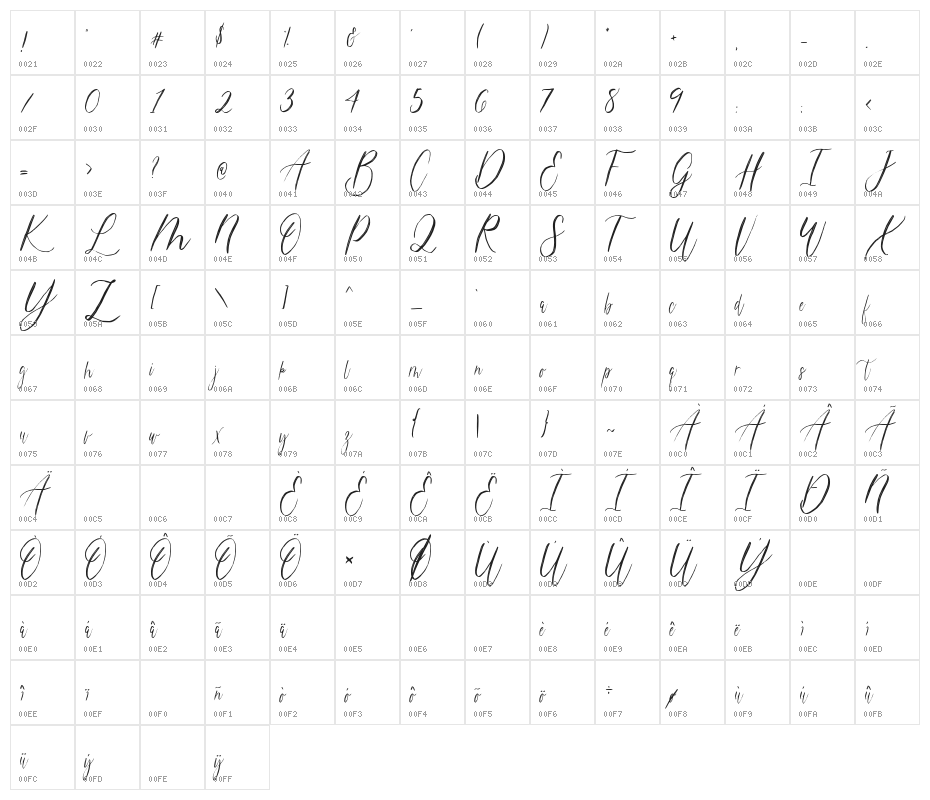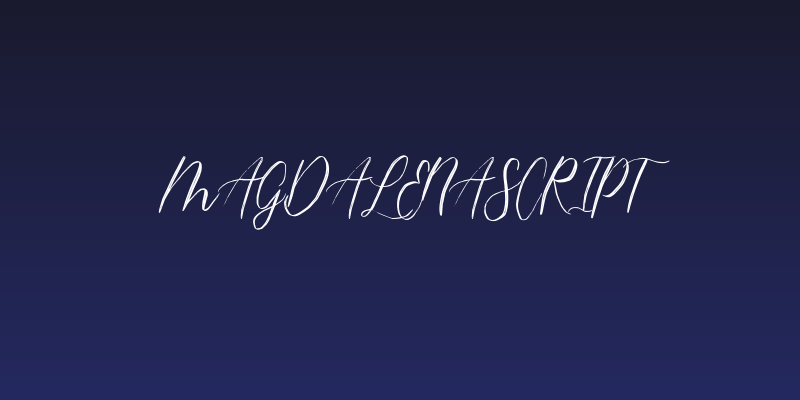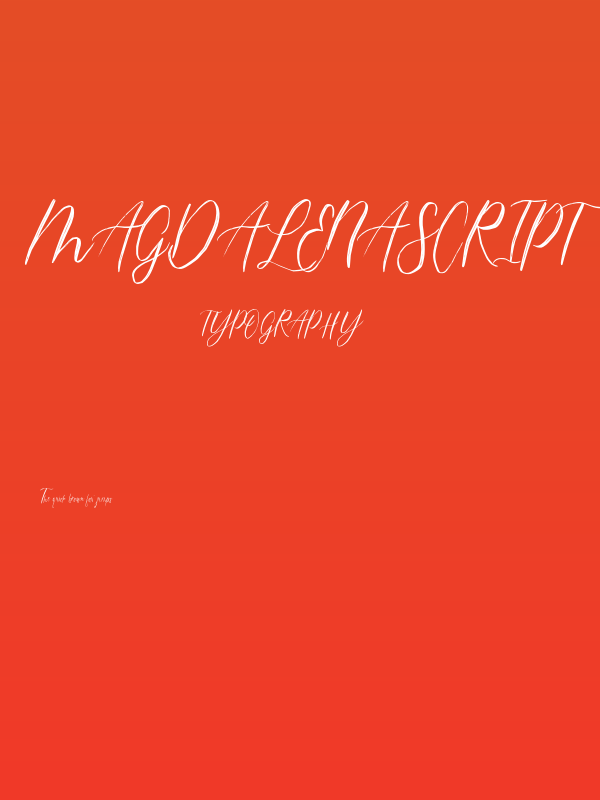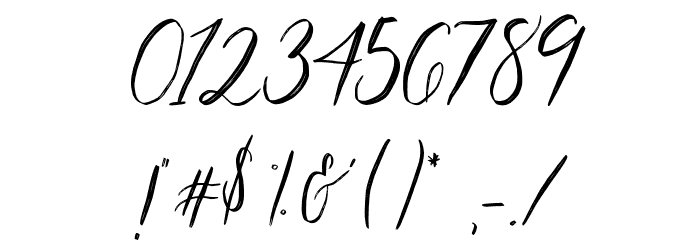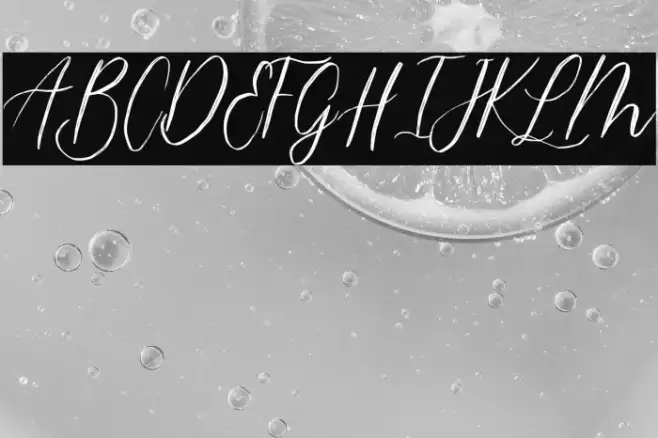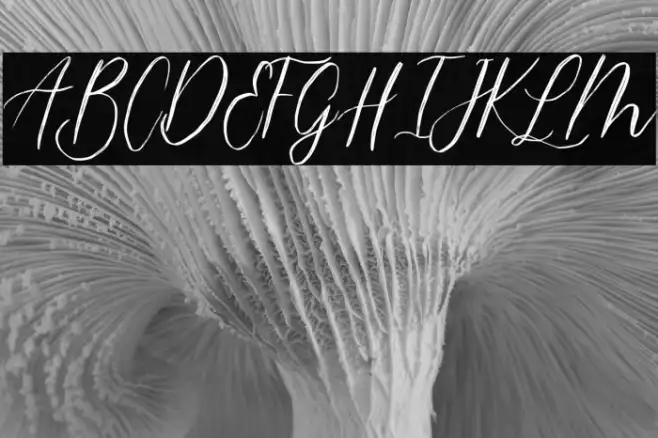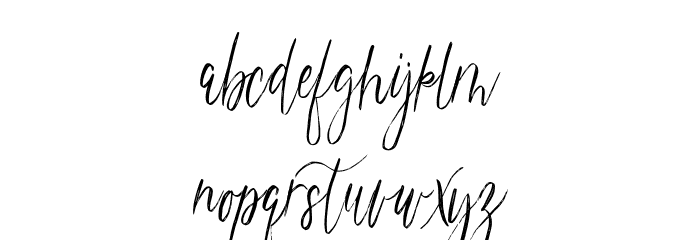
magdalenascript Font
magdalenascript Description
This font exudes elegance and fluidity, characterized by its flowing script style that mimics the natural movement of handwriting. The letters are connected with smooth, sweeping strokes, giving it a graceful and sophisticated appearance. The uppercase letters are particularly ornate, with exaggerated loops and curves that add a touch of flair. The lowercase letters maintain a consistent rhythm, enhancing readability while retaining a stylish look. The numerals and special characters are crafted with the same attention to detail, ensuring a cohesive design throughout. This font is perfect for projects that require a personal touch, such as invitations, greeting cards, and branding materials.
| Overall Style | Elegant and sophisticated |
| Proposed Projects | Ideal for wedding invitations, personal branding, greeting cards, and elegant packaging. |